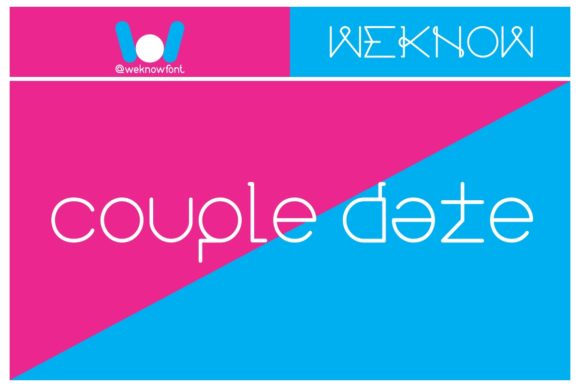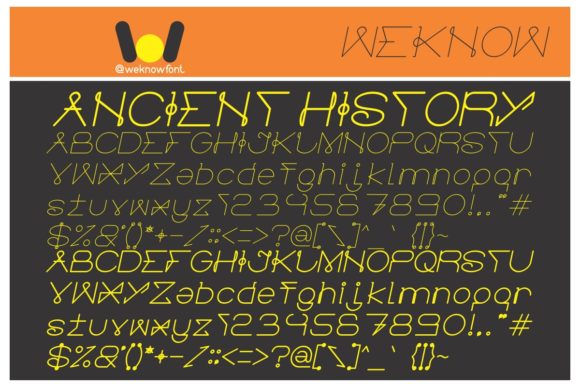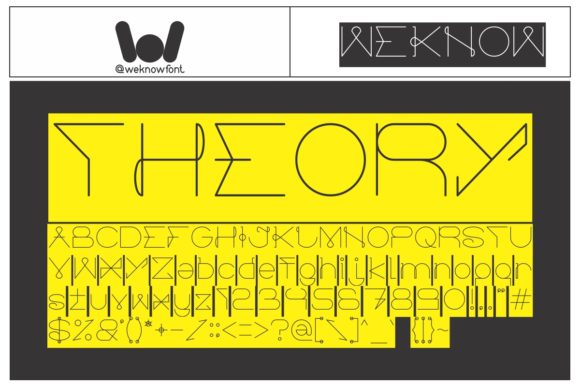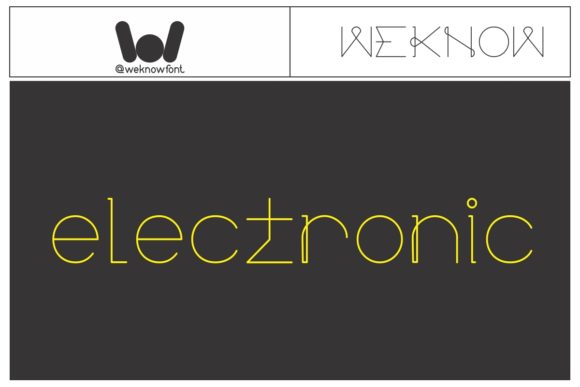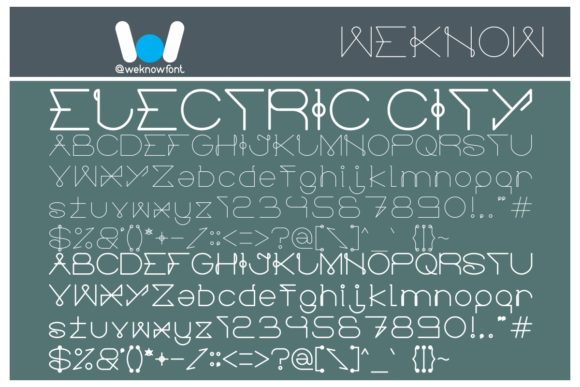
Introducing Electric City Font: The Ultimate Display Font for Creative Standouts
Are you tired of using the same old fonts for your creative projects? Look no further than Electric City Font, a vibrant and quirky display font that’s sure to turn heads. With its unique blend of fun, quirkiness, and authenticity, Electric City Font is the perfect choice for designers and crafters looking to add a touch of personality to their work.
What is Electric City Font?
Electric City Font is a specially designed display font that embodies the spirit of fun and creativity. Its enchanting and playful design makes it perfect for a wide range of applications, from posters and flyers to social media graphics and website headers. Whether you’re a professional designer or a DIY crafter, Electric City Font is sure to inspire your next creative project.
Key Features of Electric City Font
- Unique and Quirky Design: Electric City Font boasts a one-of-a-kind design that’s sure to grab attention. Its quirky and playful style makes it perfect for creative projects that require a touch of personality.
- Highly Versatile: Electric City Font is a highly versatile font that can be used for a wide range of applications, from print materials to digital graphics.
- Easy to Read: Despite its quirky design, Electric City Font is surprisingly easy to read, making it perfect for headlines, titles, and short paragraphs of text.
- Authentic and Fun: Electric City Font embodies the spirit of fun and authenticity, making it perfect for creative projects that require a touch of personality.
Who is Electric City Font for?
Electric City Font is perfect for a wide range of designers and crafters, including:
- Graphic Designers: Electric City Font is perfect for graphic designers looking to add a touch of personality to their work. Its unique design makes it perfect for logos, branding, and advertising materials.
- Social Media Influencers: Electric City Font is perfect for social media influencers looking to create eye-catching graphics and posts. Its playful design makes it perfect for grabbing attention and standing out in crowded feeds.
- Crafters and DIY Enthusiasts: Electric City Font is perfect for crafters and DIY enthusiasts looking to add a touch of personality to their projects. Its easy-to-use design makes it perfect for a wide range of applications, from handmade cards to home decor projects.
- Use it as a Headline Font: Electric City Font is perfect for headlines and titles. Its bold and playful design makes it perfect for grabbing attention and standing out.
- Experiment with Colors: Electric City Font looks great in a wide range of colors. Experiment with different colors and combinations to find the perfect look for your project.
- Pair it with Other Fonts: Electric City Font can be paired with other fonts to create a unique and interesting look. Try pairing it with a simple sans-serif font for a bold and modern look.
Electric City Font is a unique and versatile display font that’s perfect for designers and crafters looking to add a touch of personality to their work. Its quirky and playful design makes it perfect for a wide range of applications, from print materials to digital graphics. With its ease of use and highly versatile design, Electric City Font is sure to become a favorite among creative professionals and DIY enthusiasts alike.